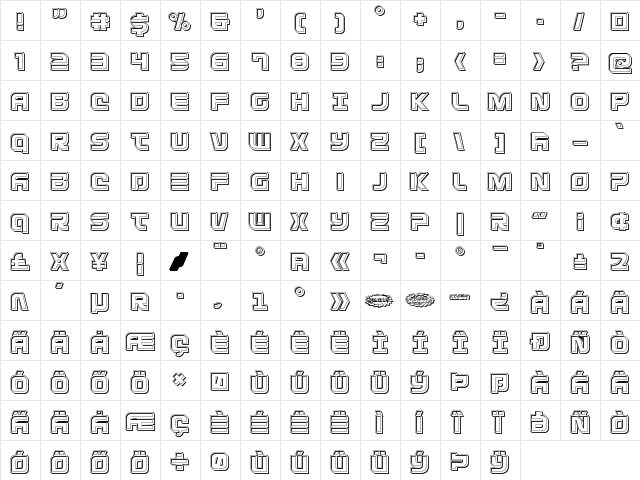
Defcon Zero Engraved Regular
Design Context for Defcon Zero Engraved Typeface
Defcon Zero Engraved brings ornamental detail and strong personality to headlines and identities, where visual impact matters more than quiet functionality.
Font Pairing: Pair with a clean neutral sans-serif for body copy to let Defcon Zero Engraved's character lead without overwhelming the composition.
Pro Tip: Treat Defcon Zero Engraved as the centrepiece of your typographic hierarchy. One strong heading set in a decorative face can carry an entire layout.